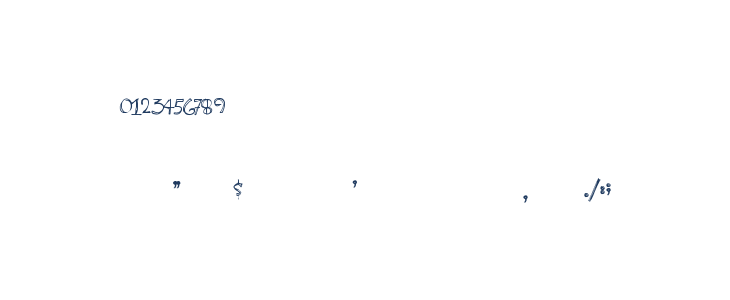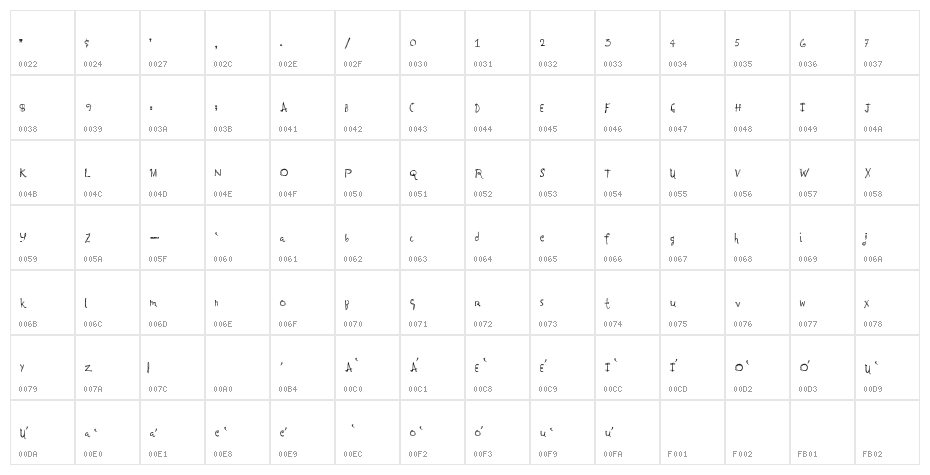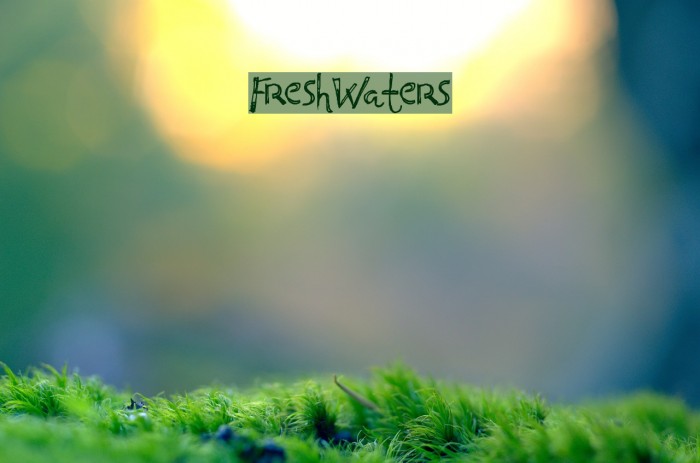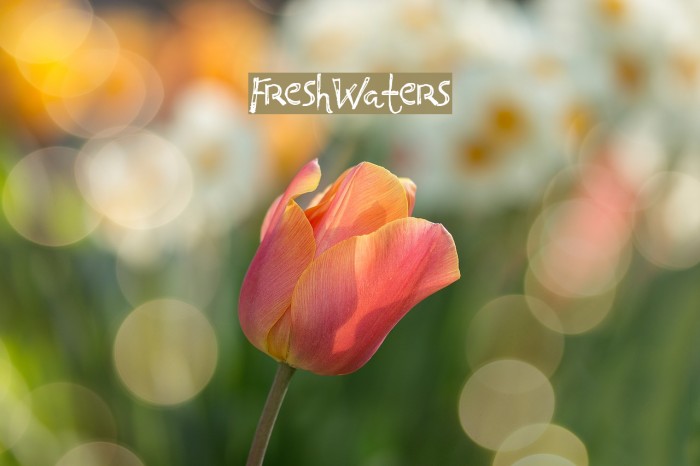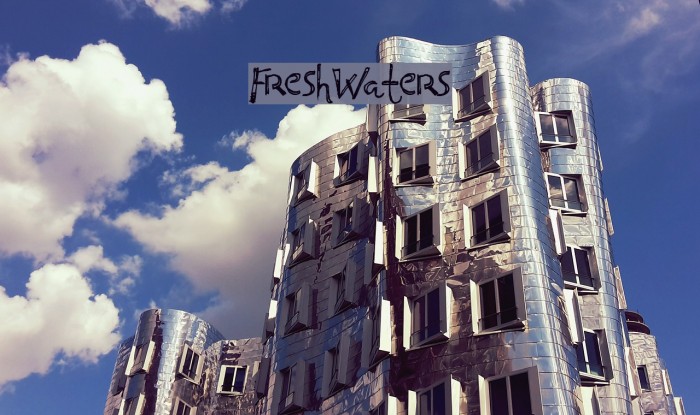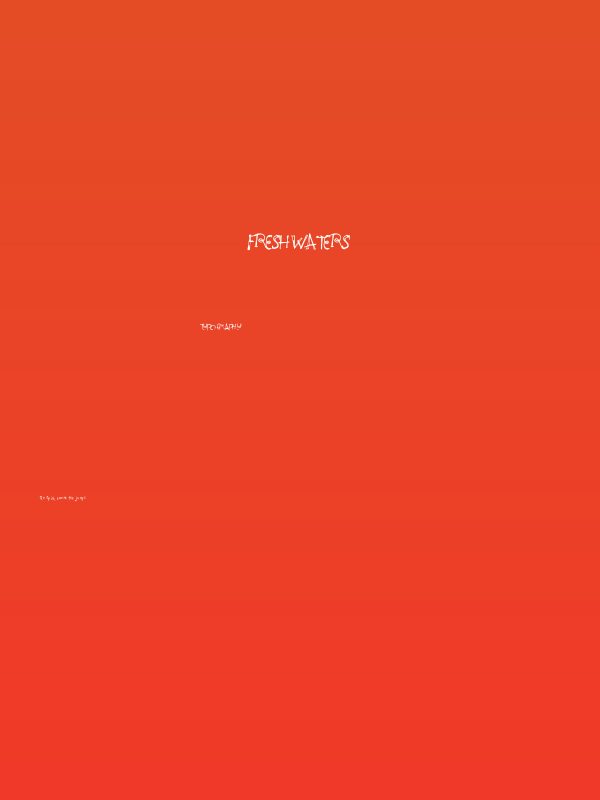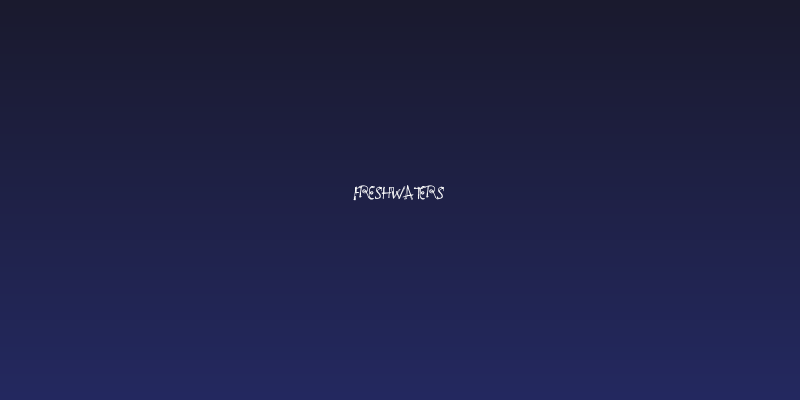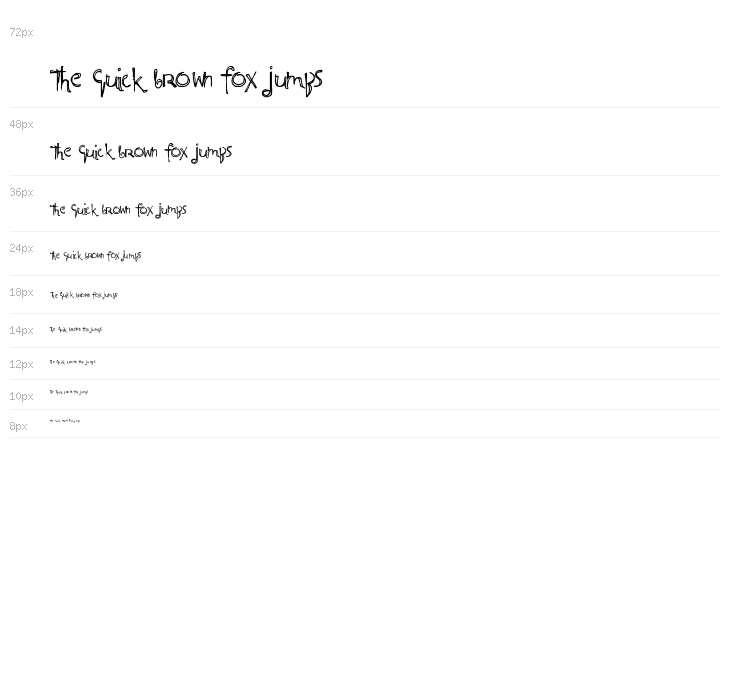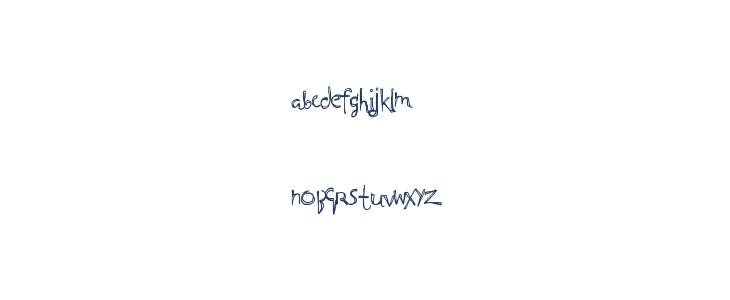
FreshWaters Font
FreshWaters Description
This font exhibits a unique and artistic style, characterized by its playful and whimsical letterforms. Each character is crafted with a sense of movement and fluidity, giving it a hand-drawn appearance. The strokes are uneven and varied, adding to the organic feel of the font. The uppercase letters are bold and dynamic, while the lowercase letters maintain a consistent flow. Numbers and special characters are designed with the same artistic flair, ensuring a cohesive look across all elements. This font is perfect for projects that require a touch of creativity and individuality.
| Use Case | Logos, Posters, Artistic projects |
| Proposed Projects | Ideal for creative projects such as children's books, artistic posters, and unique branding materials. |